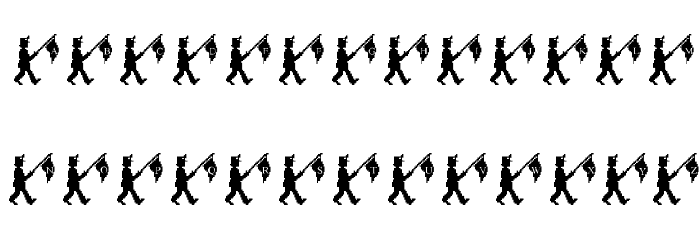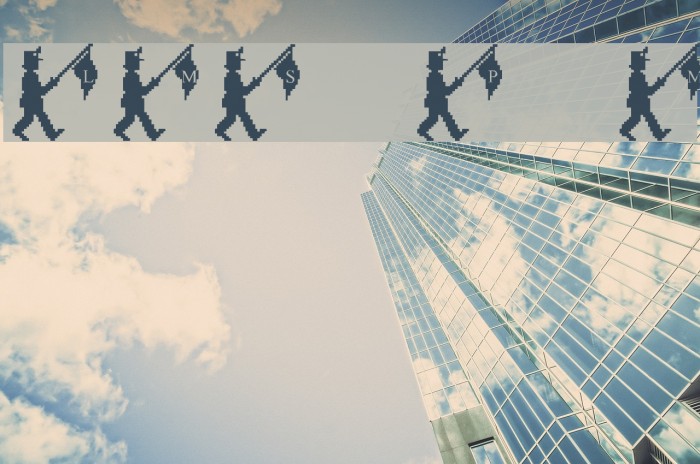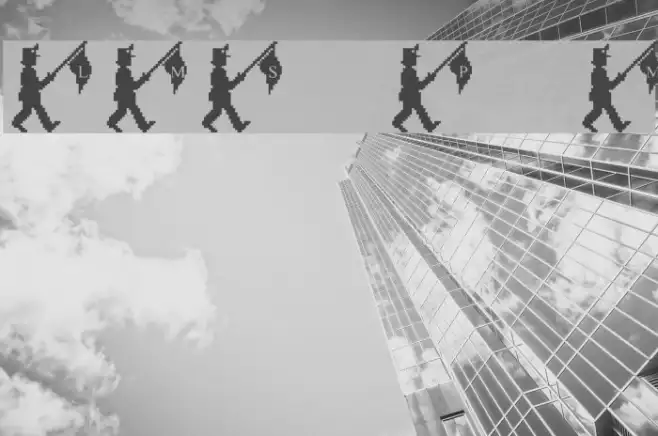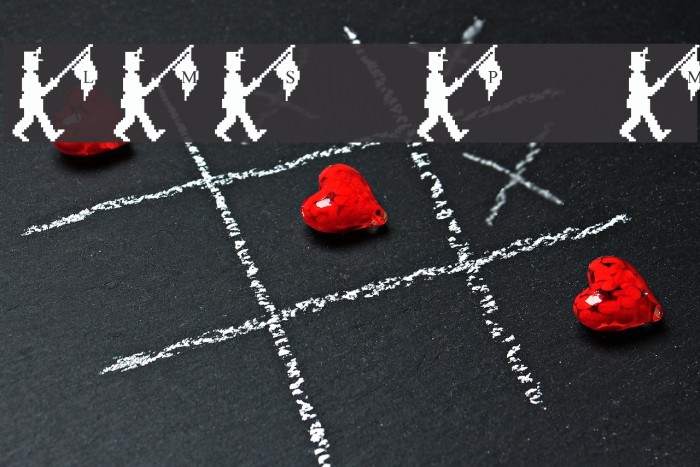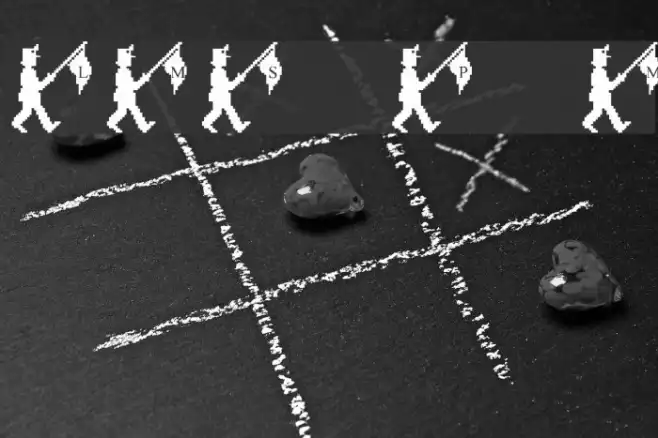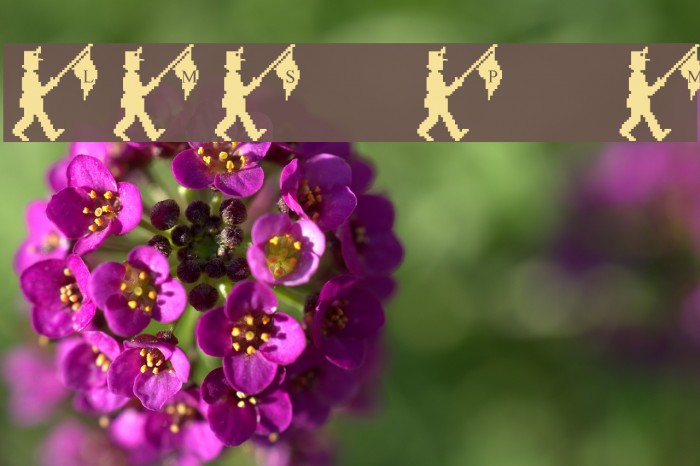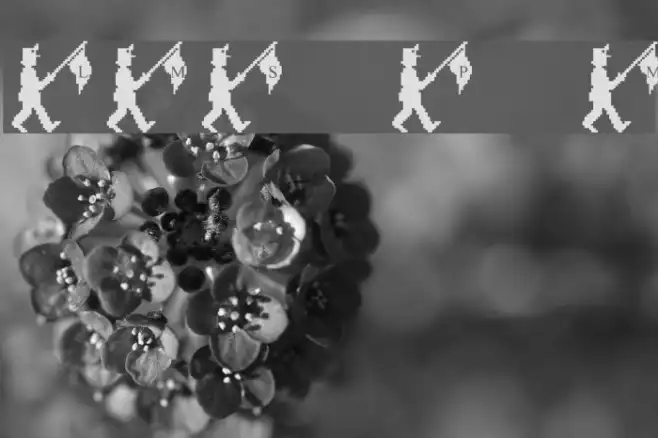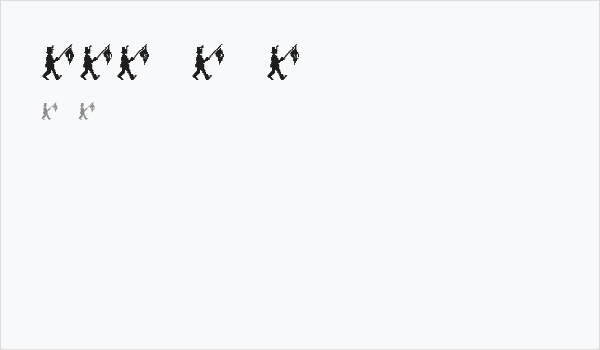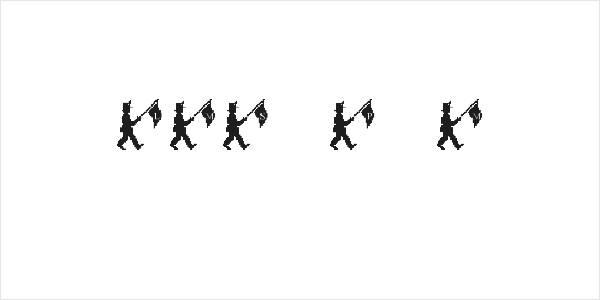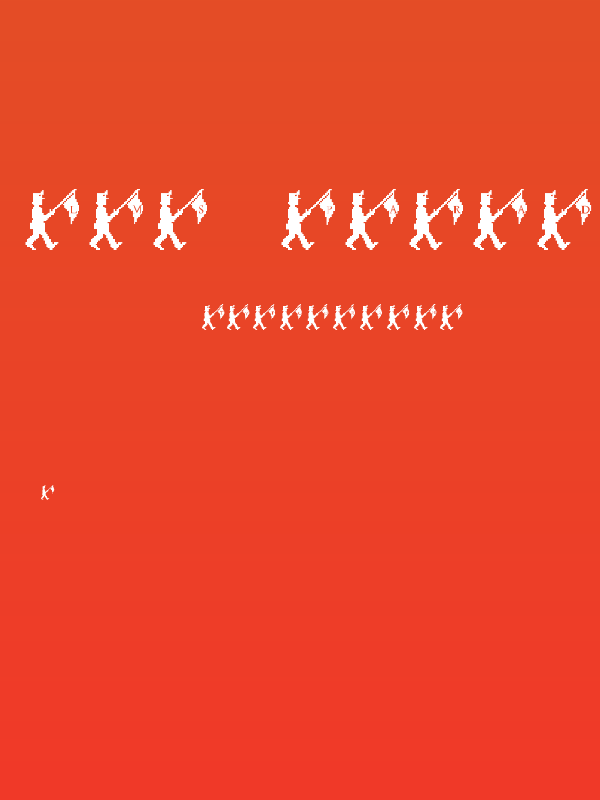
LMS Parade March Font
LMS Parade March Description
A decorative font composed of repeating silhouettes of marching figures holding flags, creating a playful and thematic visual effect rather than traditional alphanumeric characters.
| Overall Style | Decorative, Playful, Thematic |
| Use Case | Logos, Posters, Decorative elements |
| Proposed Projects | Parade or event posters, themed party invitations, childrenΓ’β¬β’s materials, decorative borders. |